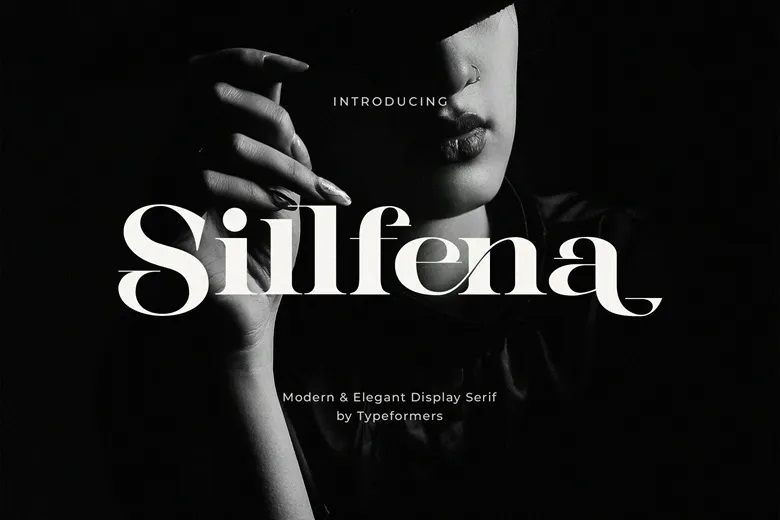
Sillfena Font
Sillfena is a new and elegant serif typeface. It has elegant and classic with edgy and beautiful looks. Sillfena is a serif font that works well in headings, logos, branding, magazines, product packaging, invitations and other such purposes.
Sillfena Serif Font